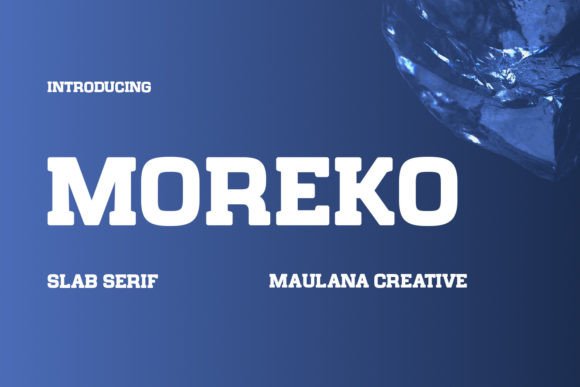
Unleash the Retro Charm of Moreko: A Slab Serif Font That Speaks to the Soul
For those seeking a font that exudes timeless beauty and transports you back to the golden age of typography, look no further than Moreko. This retro-inspired slab serif font is a masterpiece of digital artistry, lovingly crafted to evoke the charm and sophistication of mid-20th century design.
Moreko's bold, sturdy letterforms dance across the screen with an air of confidence and nostalgia. Its distinct serifs, reminiscent of vintage typewriters and handcrafted signage, add a layer of texture and depth that captivates the eye. Whether you're designing headlines, logos, posters, or any project yearning for a touch of vintage allure, Moreko is your perfect companion.
Immerse yourself in the world of Moreko and let your creativity flourish. Its versatility knows no bounds, adapting seamlessly to a myriad of design styles. Whether you seek a classic and elegant look or a bold and playful aesthetic, Moreko effortlessly elevates your designs to new heights.
Step into a realm where typography meets art. Moreko isn't just a font; it's an experience that transports you to a bygone era of style and sophistication. Its carefully crafted details and unwavering attention to aesthetics make it a true gem in the world of digital fonts.
Don't settle for ordinary fonts that fail to inspire. Embrace Moreko's timeless charm and embark on a creative journey that will leave a lasting impression on your audience. Let your designs speak volumes with the eloquence and grace of Moreko, a font destined to become a cornerstone of your typographic arsenal.